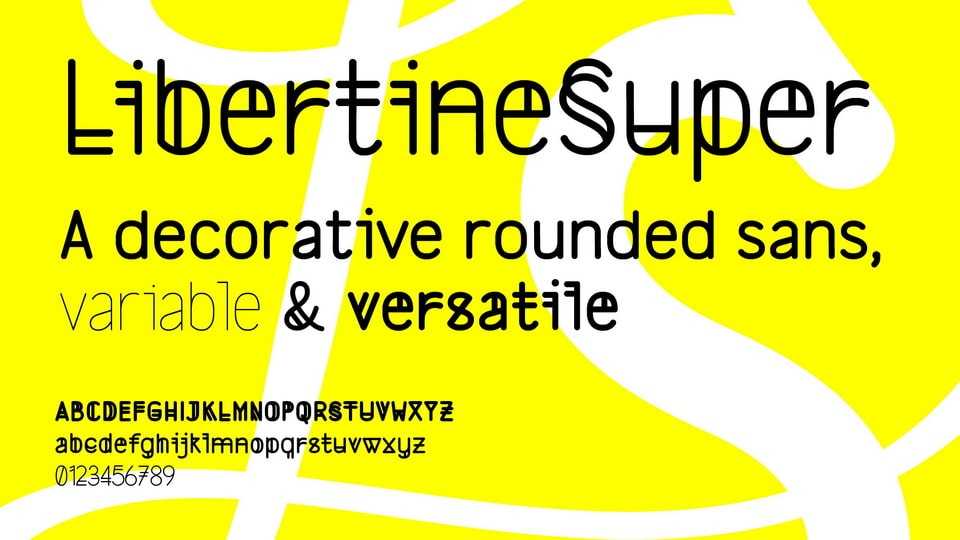
Download LibertineSuper font, a decorative rounded sans serif, variable and versatile. LibertineSuper’s got these cool decorative lines in its default style, but if you’re more into easy reading, just hit up stylistic set 1 for a cleaner look.
Designer: Bastien Sozeau